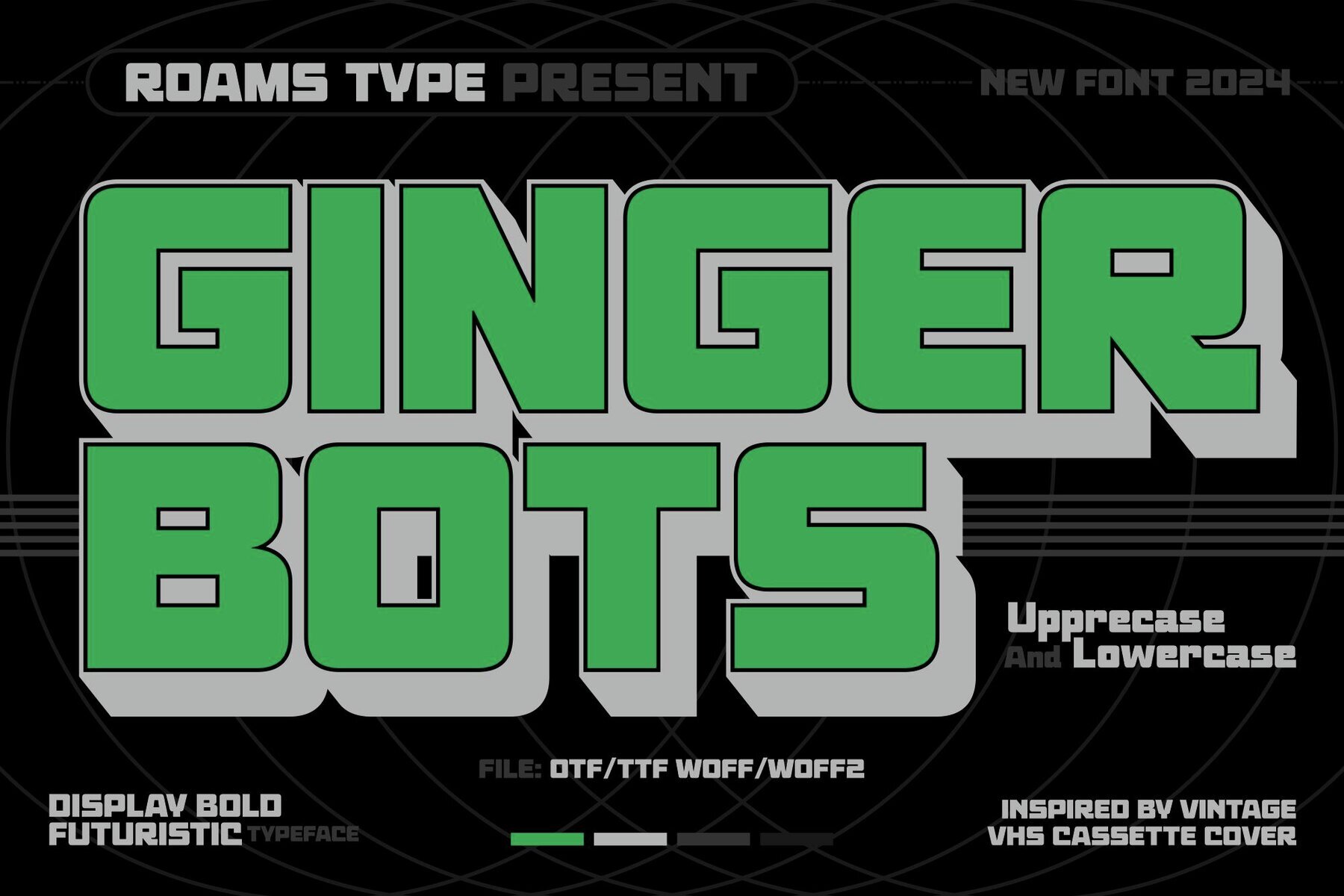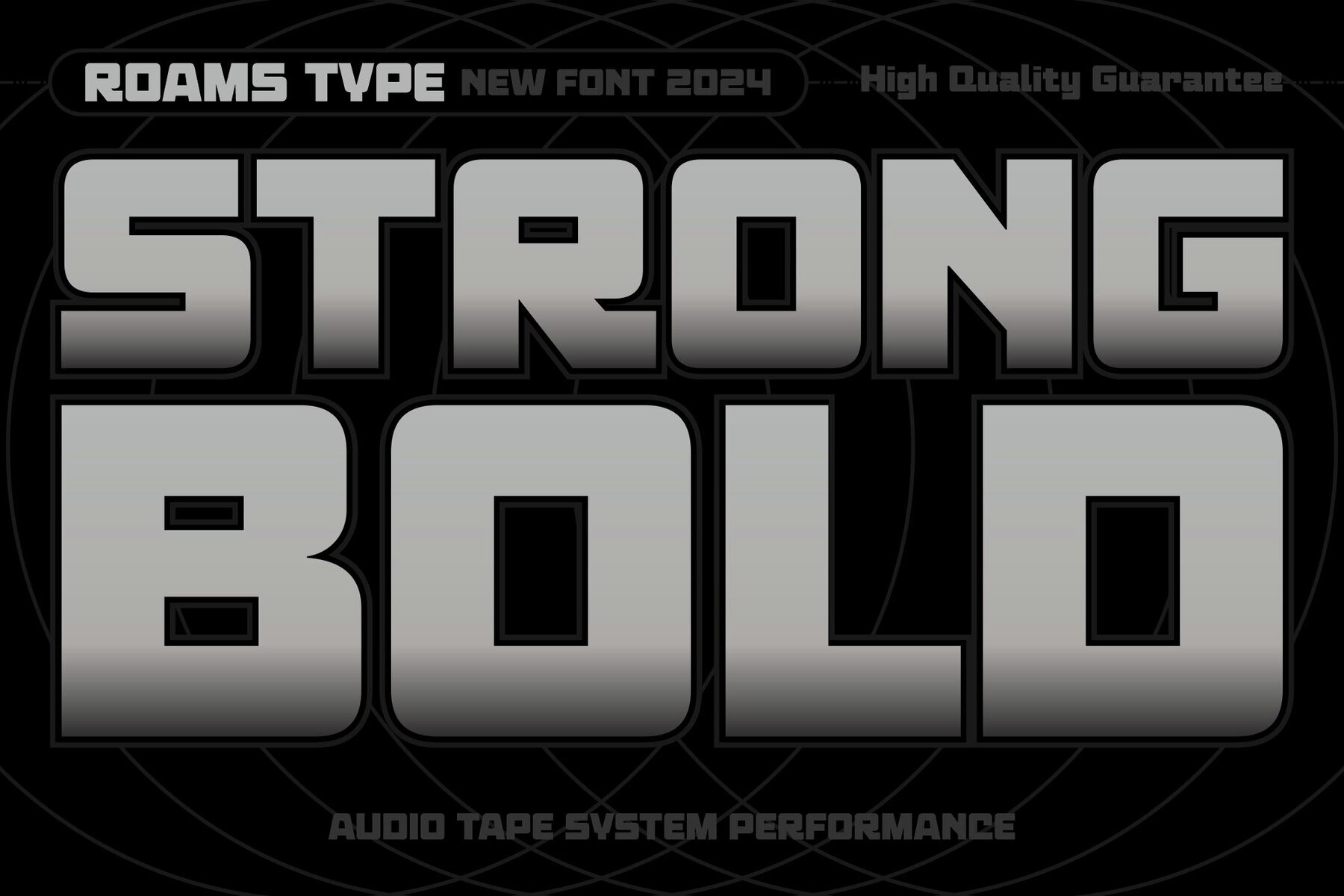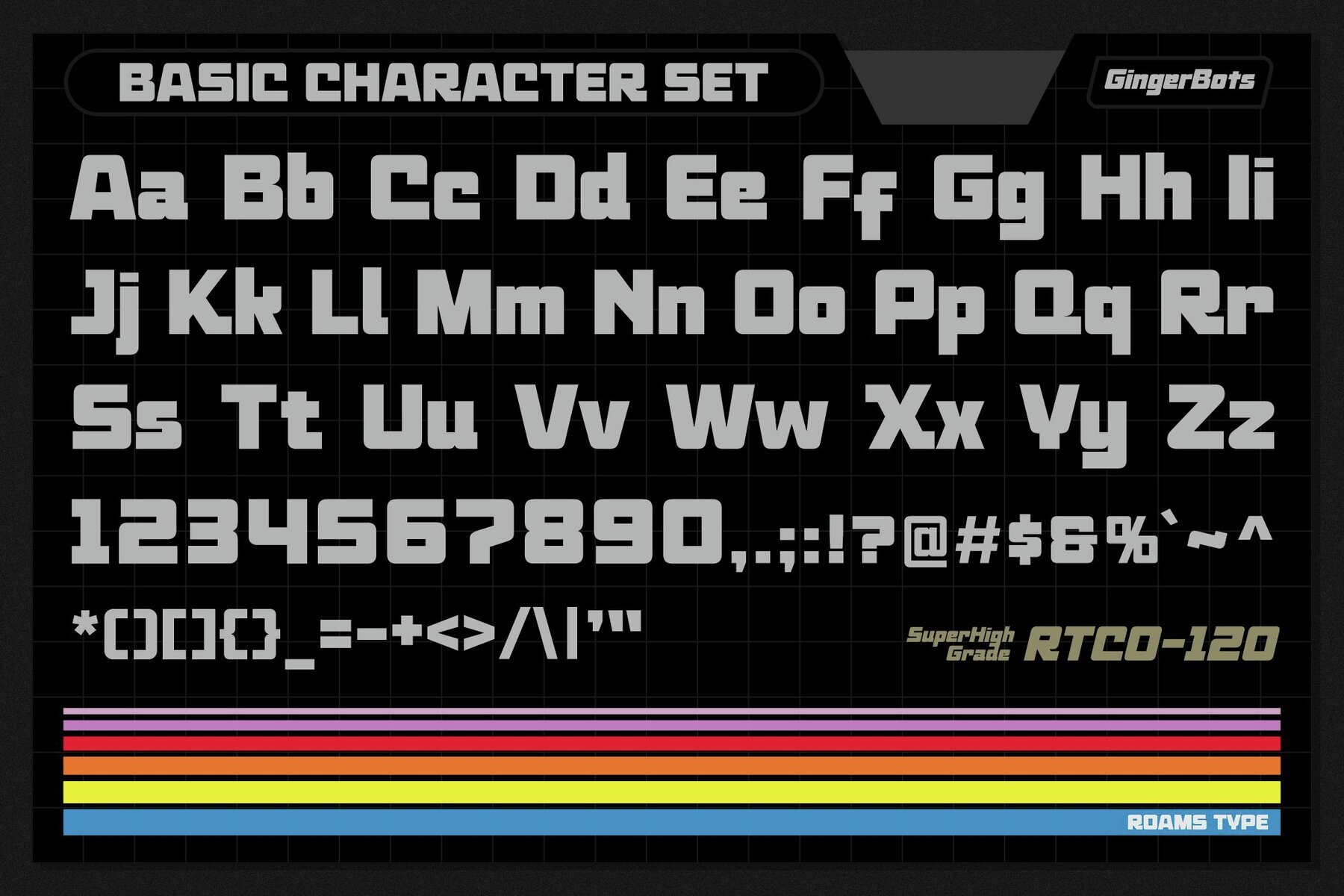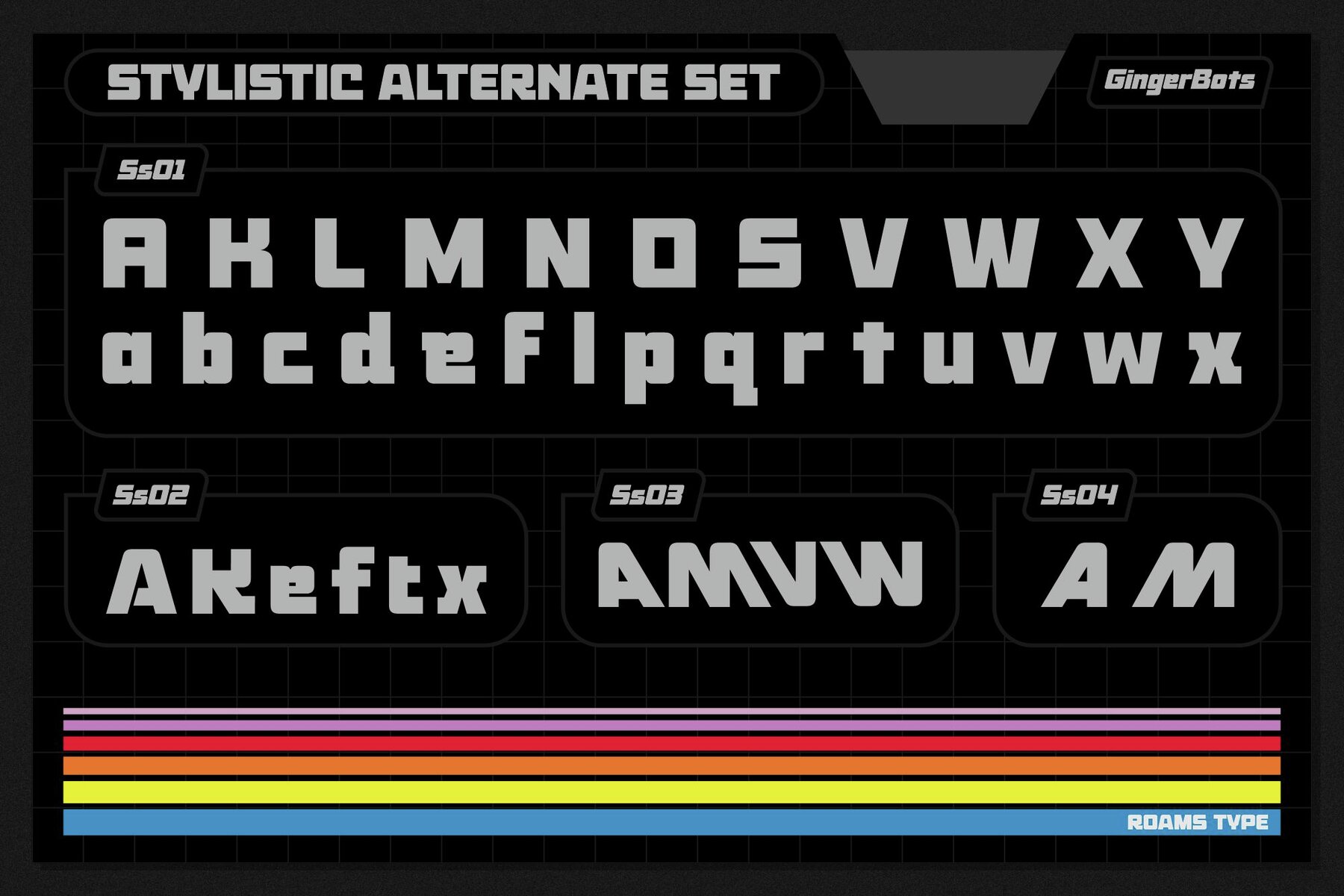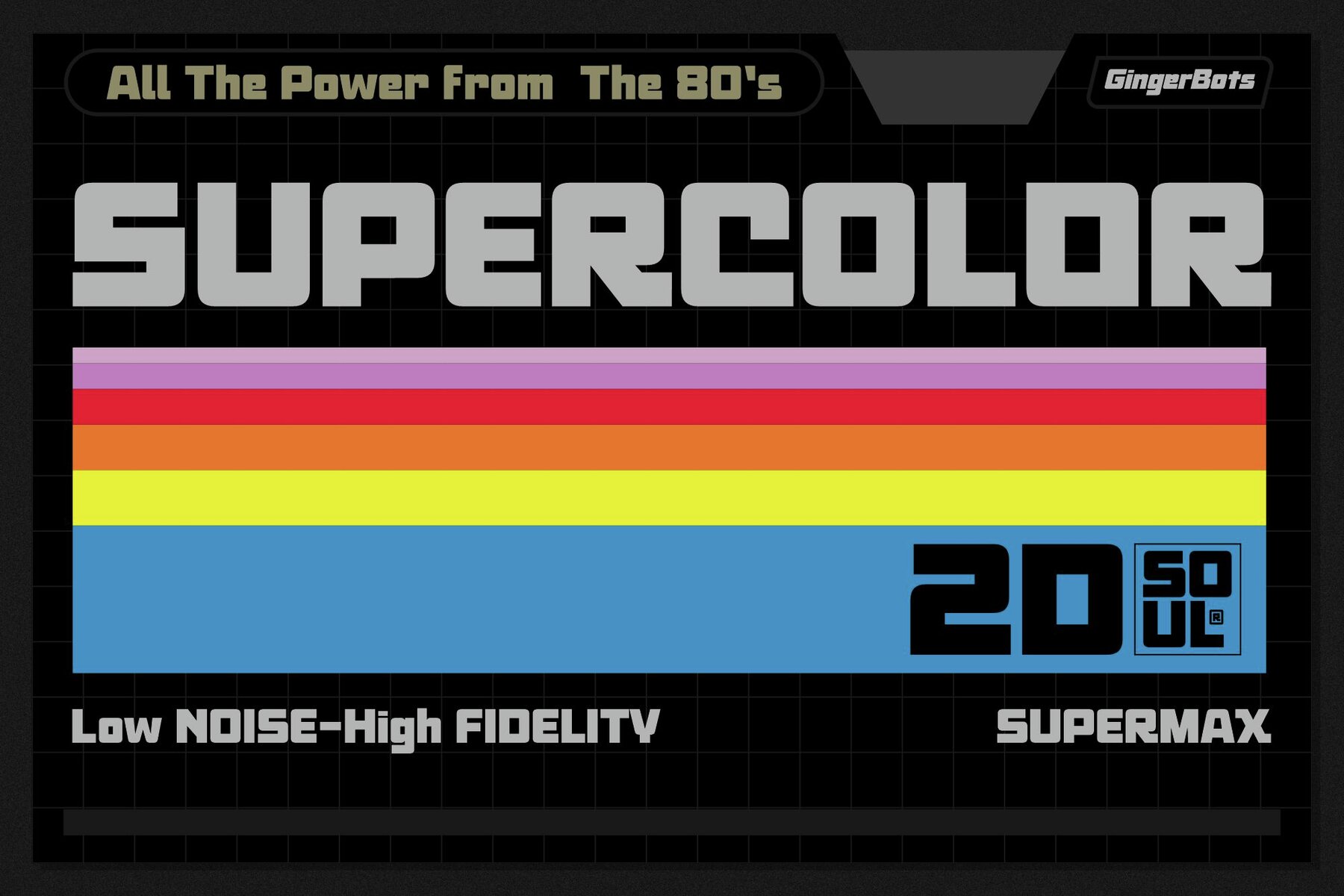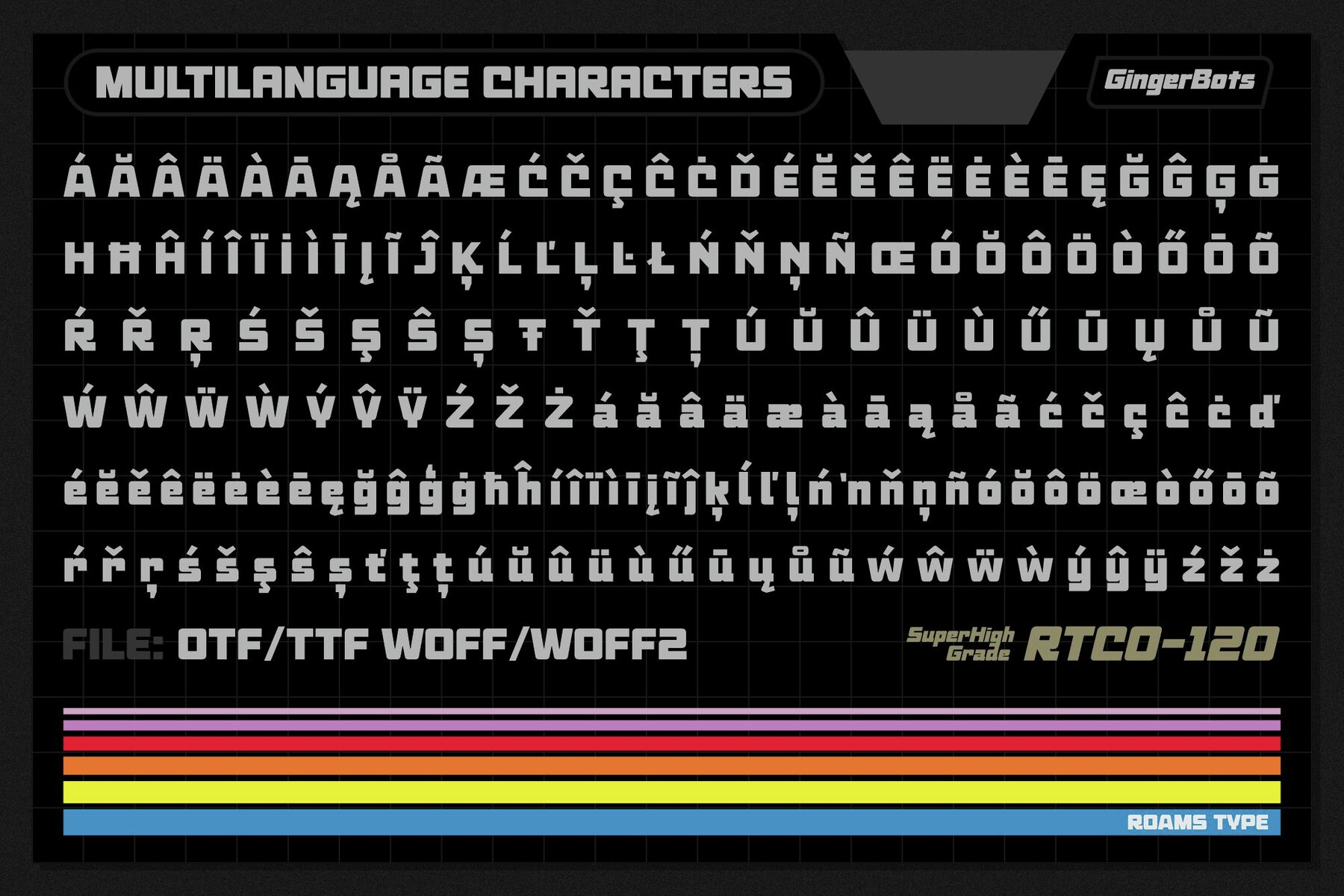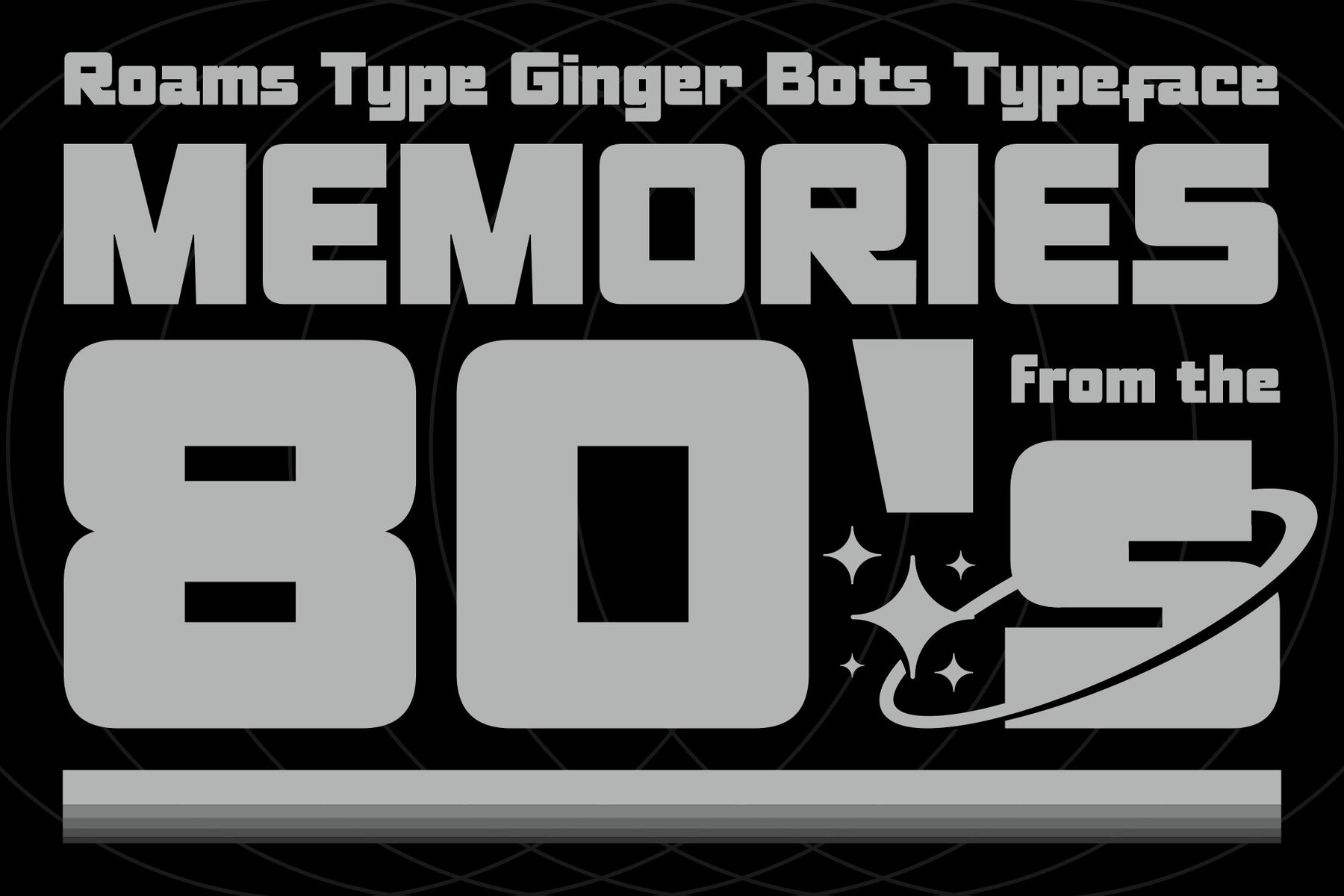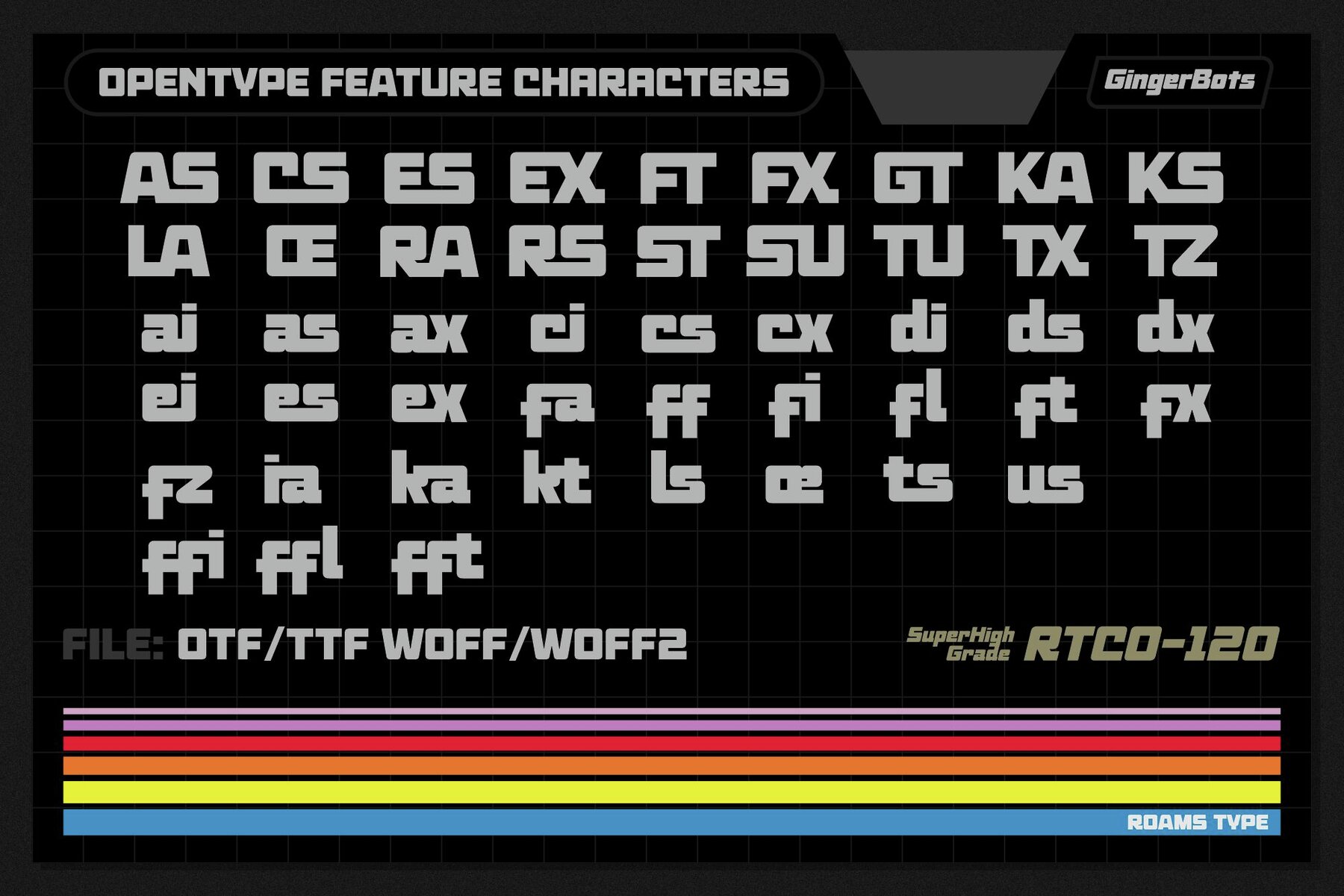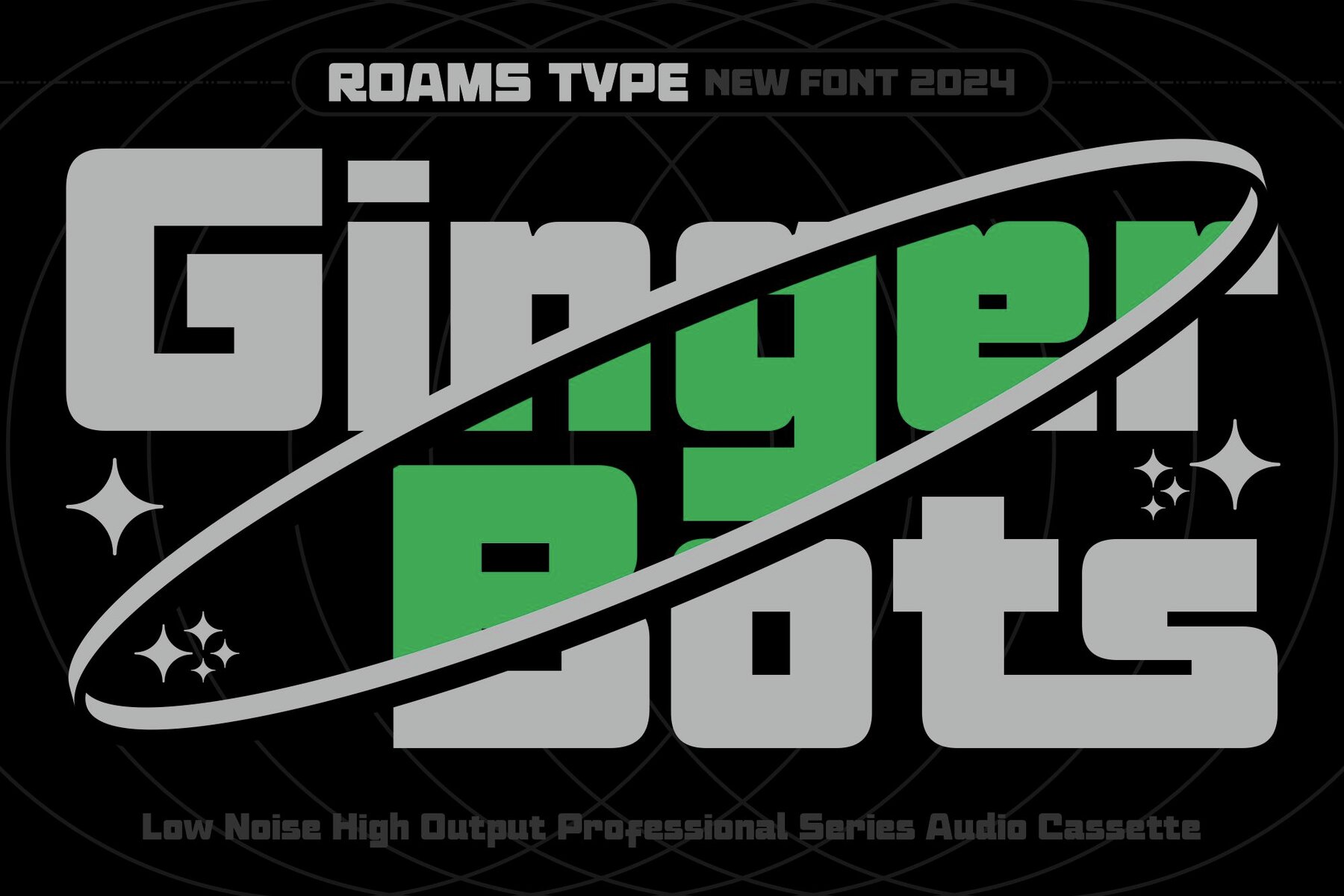
Ginger Bots Font
Ginger Bots
Ginger Bots captures the essence of 80's VHS title typography with a bold and dynamic style. Perfect for adding a nostalgic yet modern touch to your projects, this font excels in making logos and typography stand out. Featuring both uppercase and lowercase letters, it provides flexibility in design, ensuring your text maintains a cohesive and engaging visual appeal.
The font package includes numerals, punctuation, and ligatures, enhancing its versatility for various design needs. Its multilingual support ensures that your designs can communicate effectively across different languages. Ginger Bots is the ideal choice for designers looking to infuse their work with a retro vibe while maintaining a strong, contemporary presence.